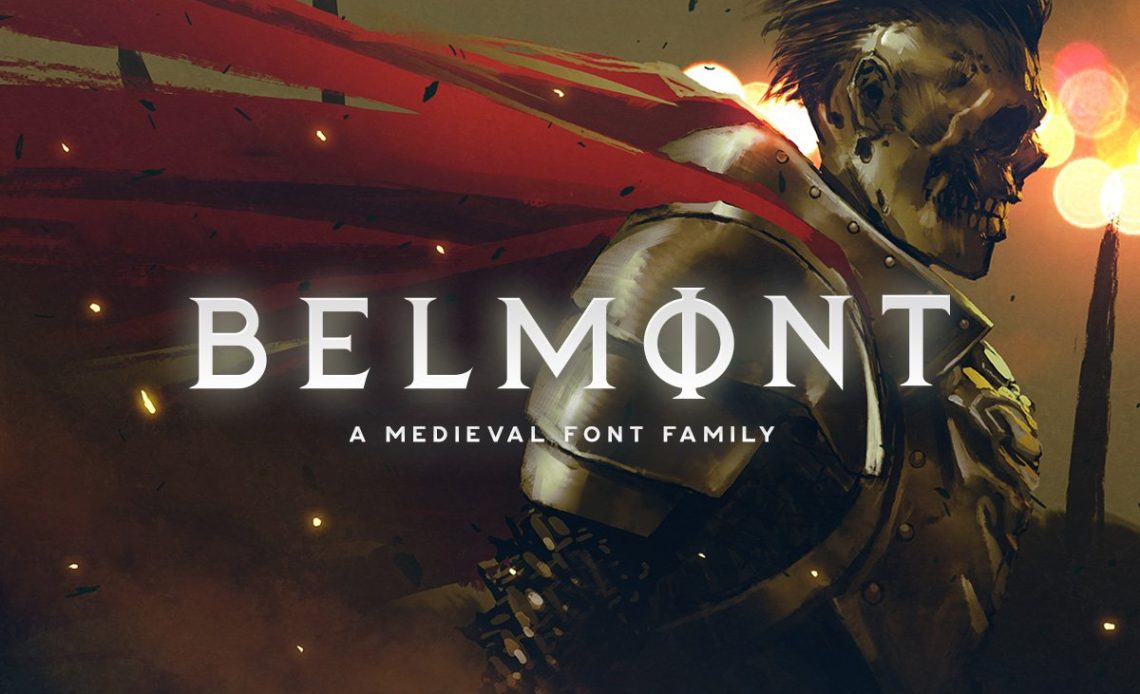
Belmont Typeface is the ultimate font collection for your branding and logo needs. Created by Mehmet Tugcu, a renowned UI and Type designer, this medieval font family is the perfect choice for businesses looking to make a statement. With three distinct styles, Belmont offers a range of options to fit your unique brand personality.
Belmont Typeface is not your average font. It is a masterpiece that will elevate your brand to new heights. Its uppercase multilingual letters, alternate letters, numbers, and punctuation are crafted with precision, making your branding efforts effortless. With its bold and captivating design, Belmont will help your brand stand out from the crowd.
But what sets Belmont apart is the emotional connection it creates with your audience. Its medieval style invokes a sense of tradition, trust, and reliability. Customers will see your brand as established, professional, and credible, increasing their willingness to do business with you.
Belmont Typeface is the best investment you can make for your brand. It will help you build a unique identity that resonates with your audience and communicates your values. With Mehmet Tugcu's design expertise and attention to detail, Belmont is the perfect choice for businesses looking to create a lasting impression.